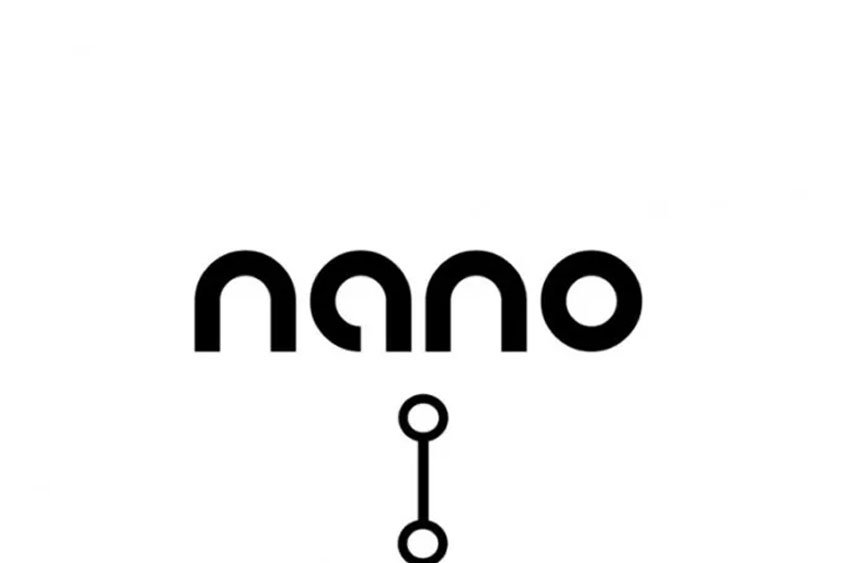
Nano Font
Nano Font was designed by Harrison Luke. Featuring geometric, near-monoline designs with soft edges and vibrant designs for classic durability combined with ultramodern simple letterforms ideal for branding and logo creation.
Nano is a contemporary font perfect for modern branding or logo use.